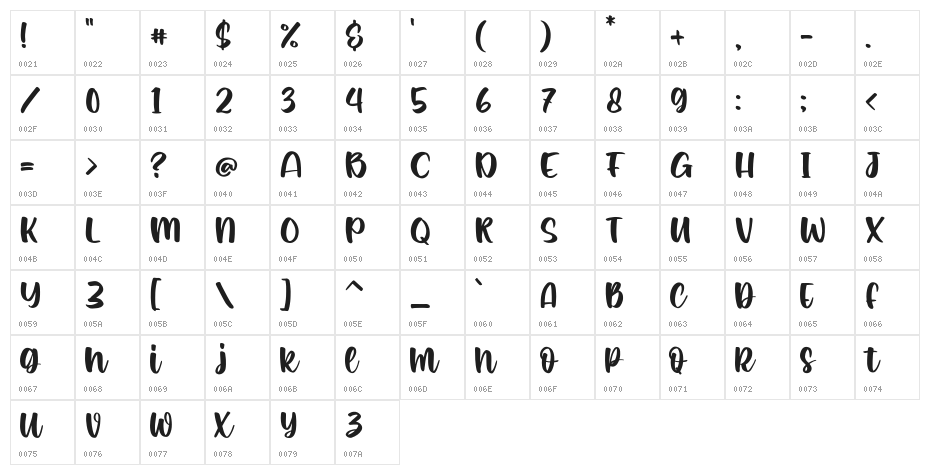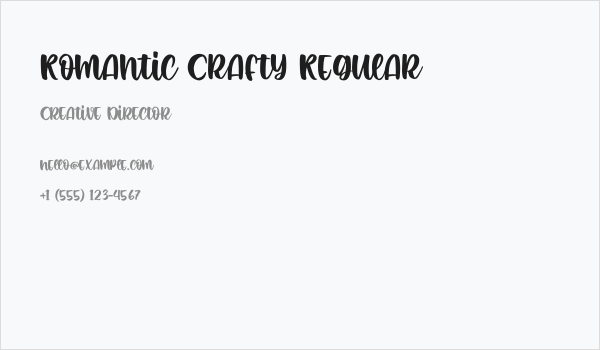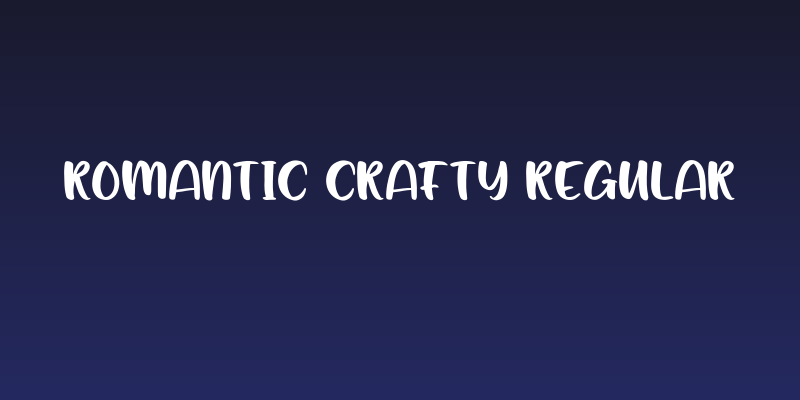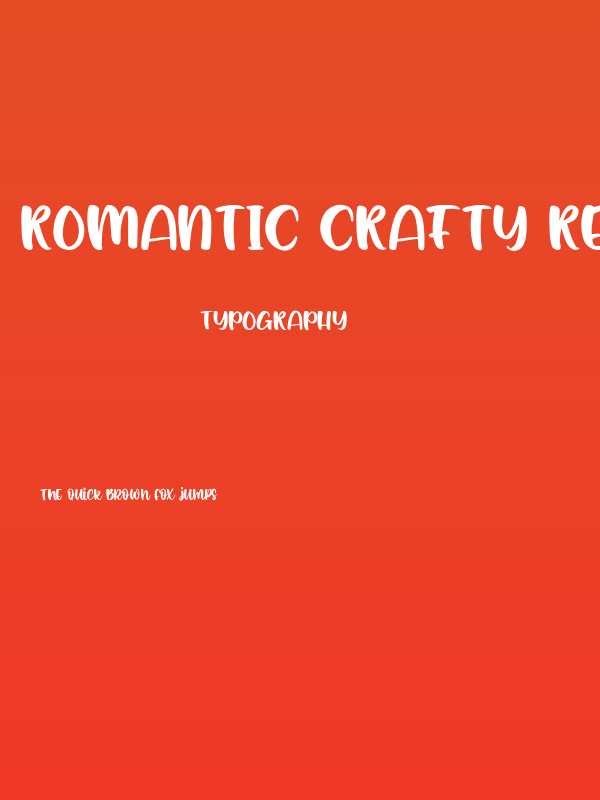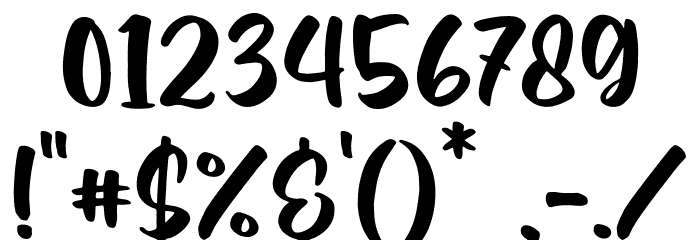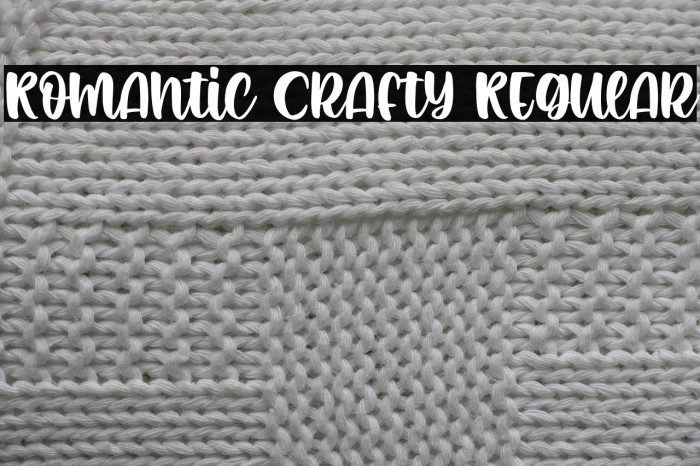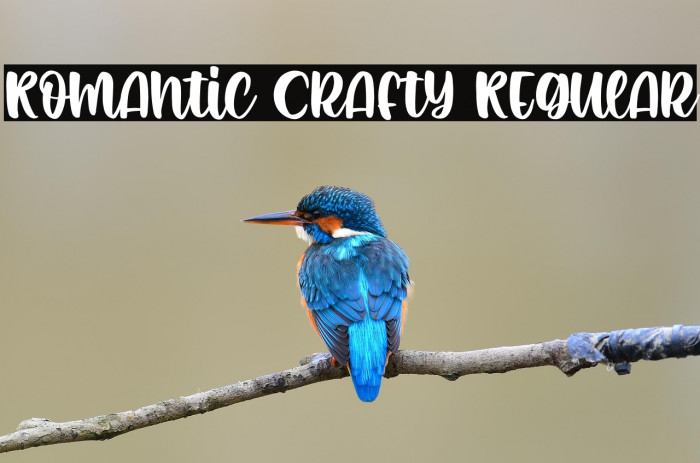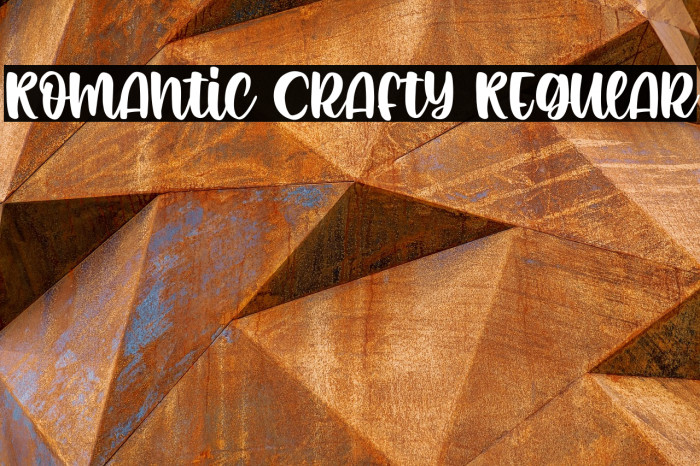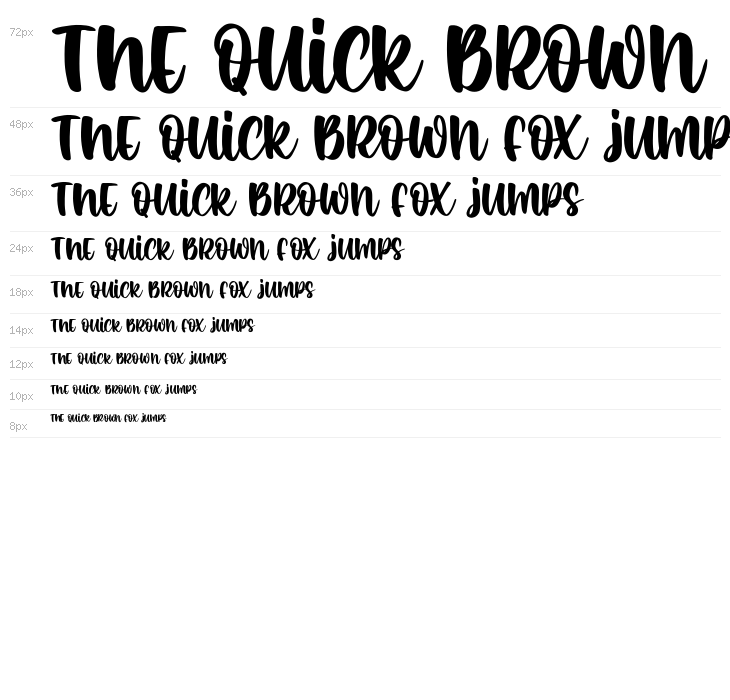
Romantic Crafty Regular Font
Romantic Crafty Regular Description
This font exudes a playful and romantic charm, characterized by its bold, flowing script style. The letters are crafted with a brush-like appearance, giving them a handcrafted feel that is both casual and elegant. The uppercase and lowercase letters maintain a consistent style, with smooth curves and rounded edges that enhance its approachable and friendly look. The numbers and special characters follow the same aesthetic, ensuring a cohesive appearance across all text elements. This font is perfect for projects that require a personal touch, such as invitations, greeting cards, and creative branding.
| Proposed Projects | Ideal for wedding invitations, greeting cards, personalized gifts, and creative branding. |